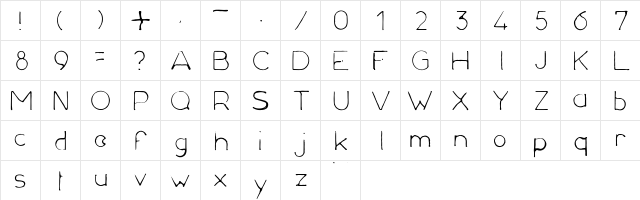
Mould Regular Font Preview
Mould Regular
Mould Regular Font Details
| Foundry | \ Rebels/Martijn Oostra/ |
Design Context for Mould Typeface
Mould takes a measured approach to typography — its balanced proportions and neutral character make it a reliable workhorse for both digital and print work.